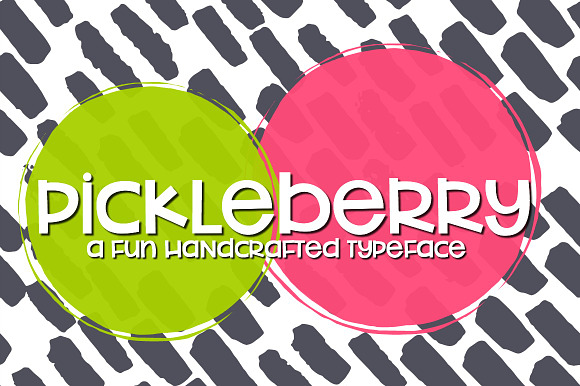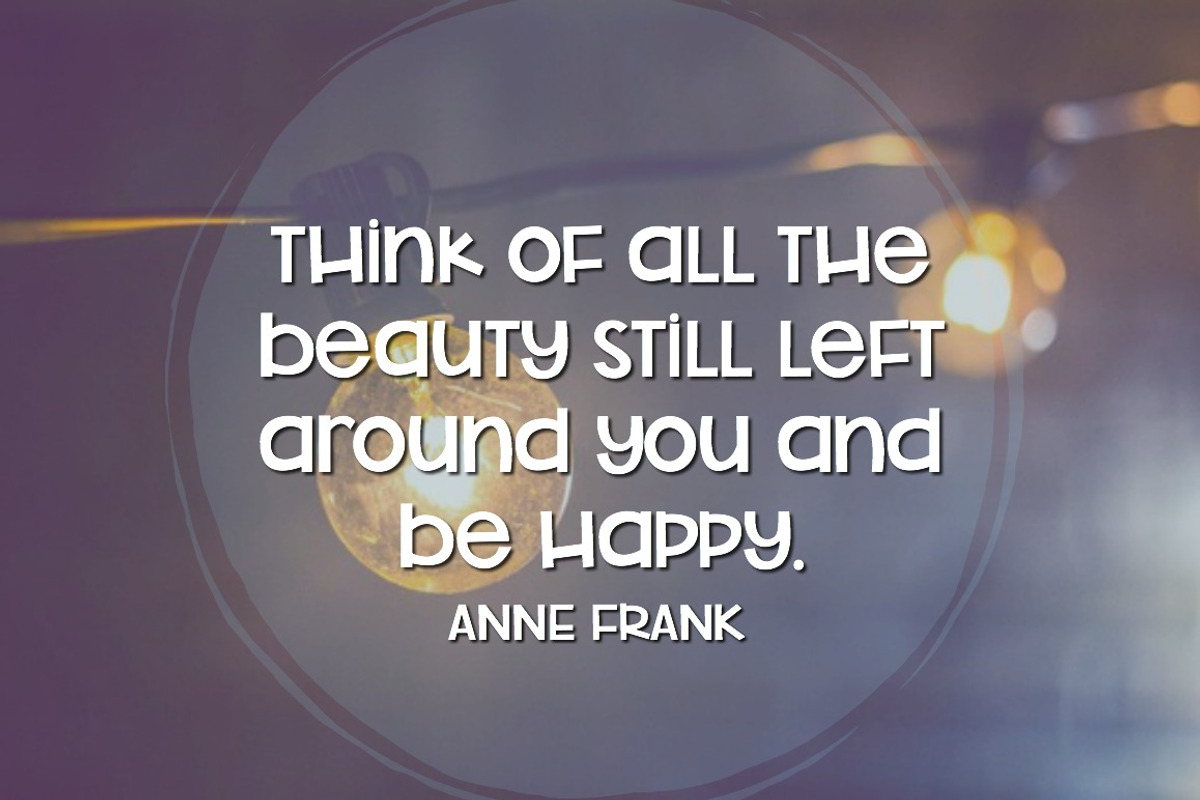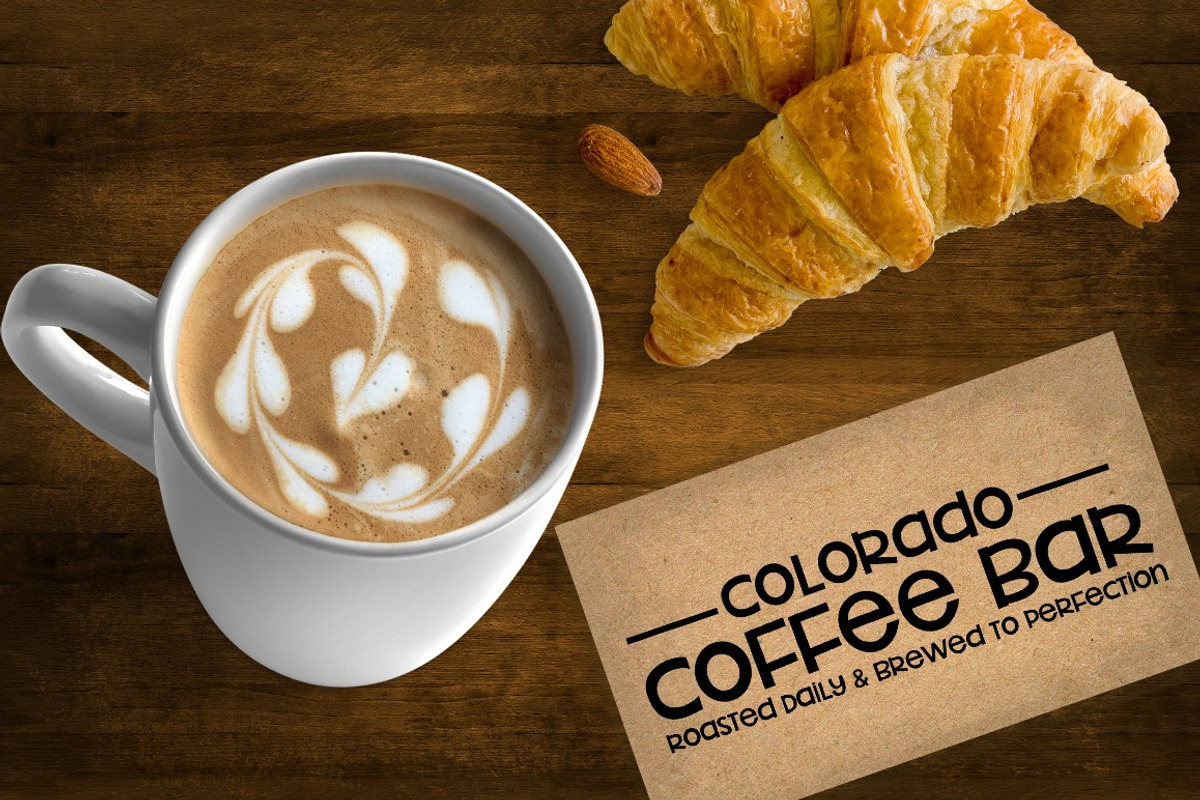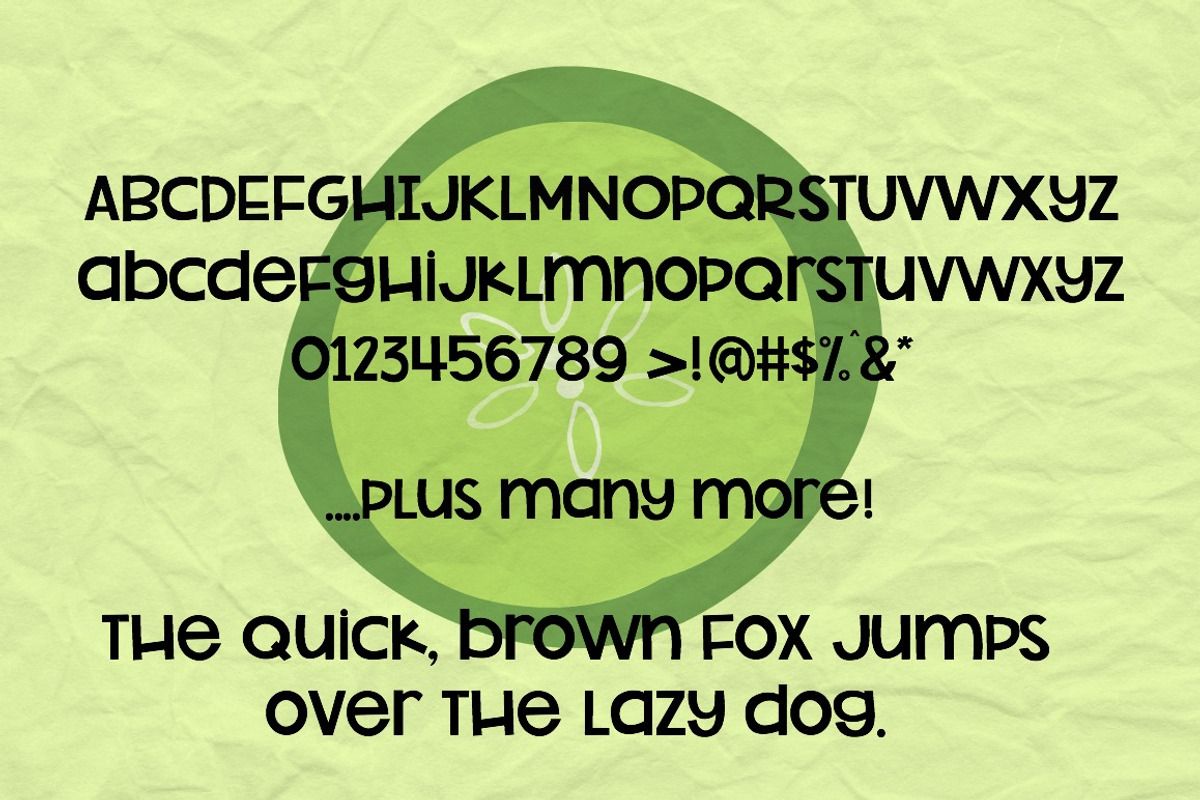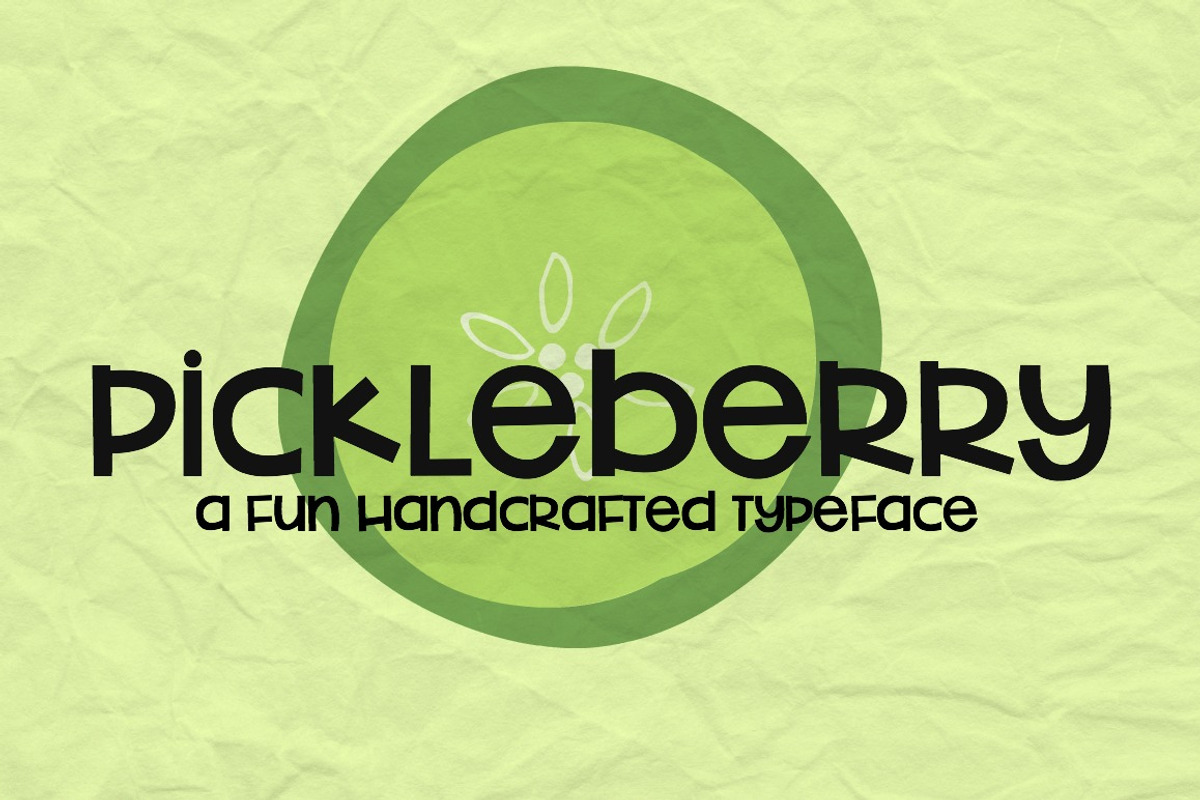
NEW!! Pickleberry Font
Pickleberry is a fun handwritten font that is perfect for so many designs.
NEW!! Pickleberry Font by Sabrina Schleiger Design fits naturally into Branding, posters, packaging, typography.